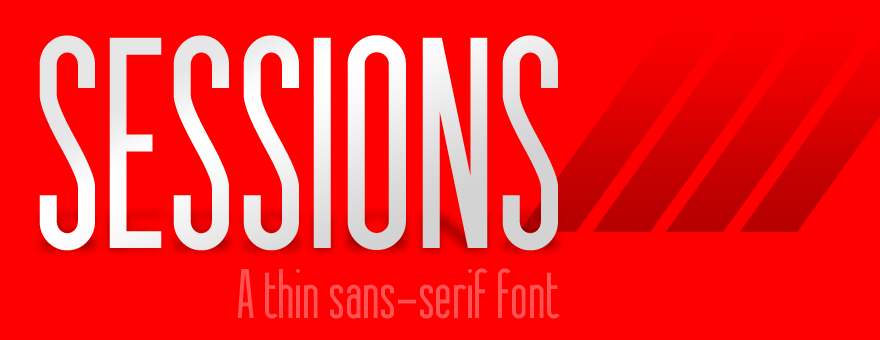
Font name: | Sessions |
Author: | MuraKnockout Media + Design |
This is a workhorse, multipurpose sans-serif font that's ready to grind axes and burn candles at both ends. This font dares you to not find a use for it. http://michaelmuranaka.com/sessions-sans-serif-font/ ----------------------- For commercial use, please see the font licensing agreement: http://michaelmuranaka.com/font-licensing-agreement/ ----------------------- Check out my new Font Blog to stay up to see when I release new fonts! http://michaelmuranaka.com/category/fonts/ ----------------------- This is free for personal use. Please do not sell, redistribute, or claim ownership of this font. Please DO NOT download this font and redistribute it on another website!!! If you make use of this font, it might be cool if you either credit MuraKnockout Media or Michael Muranaka, or show me how you used it! Enjoy! |